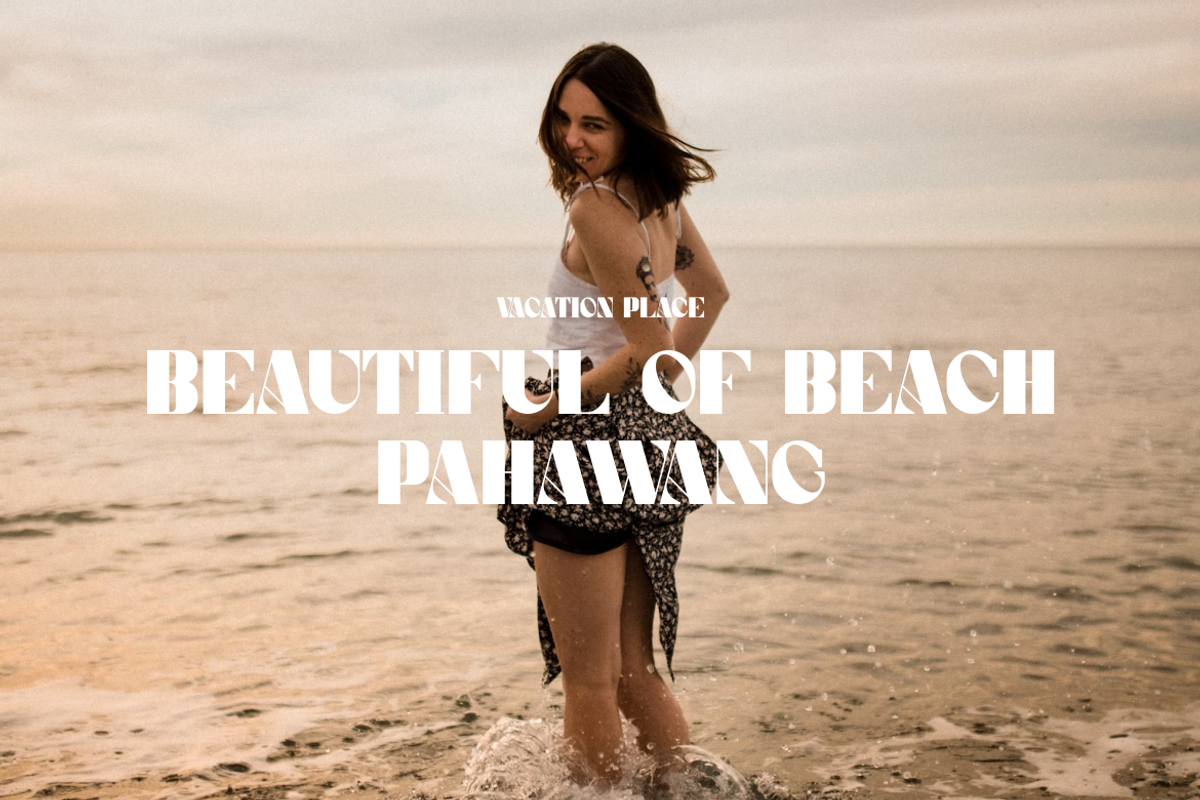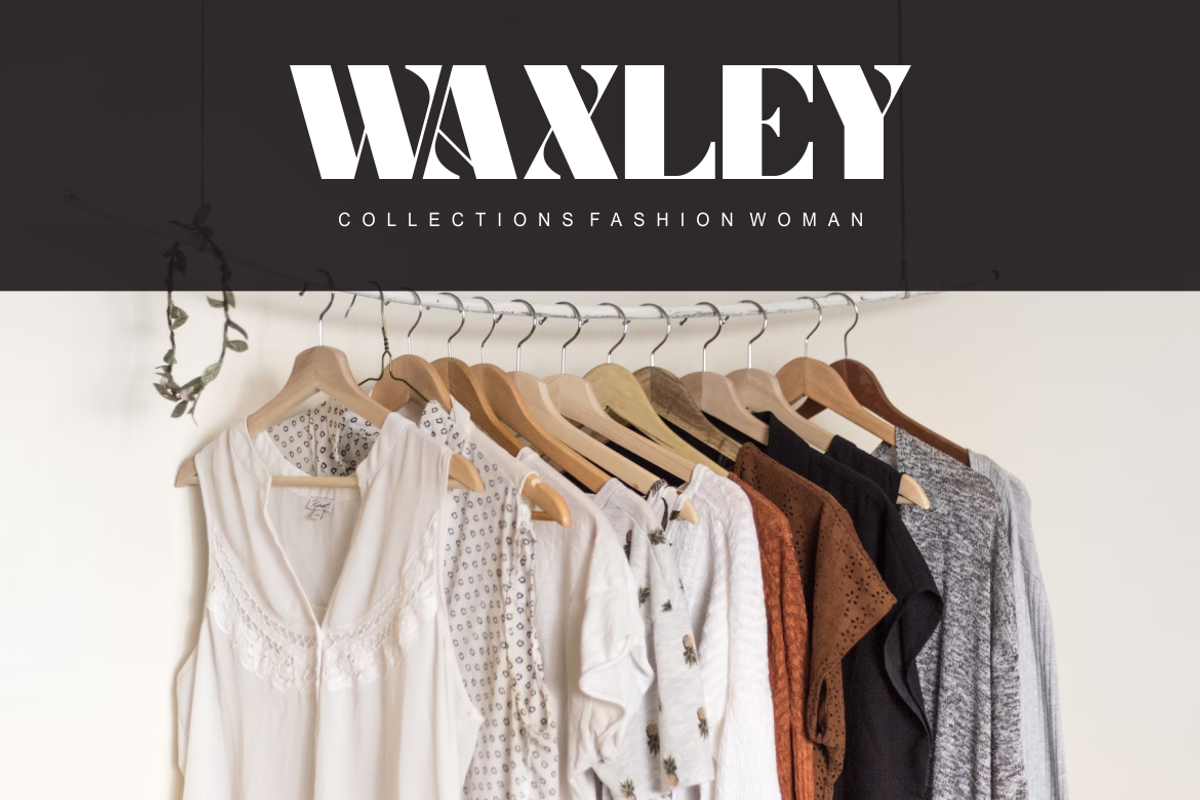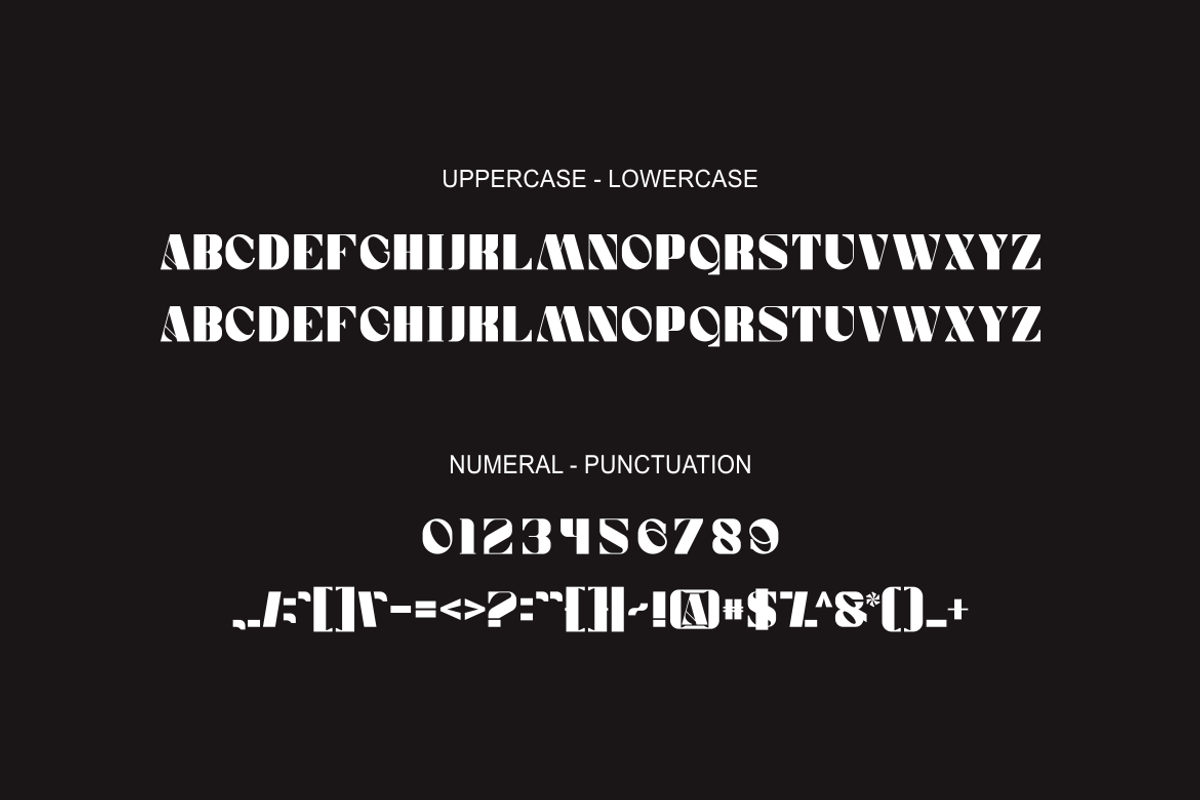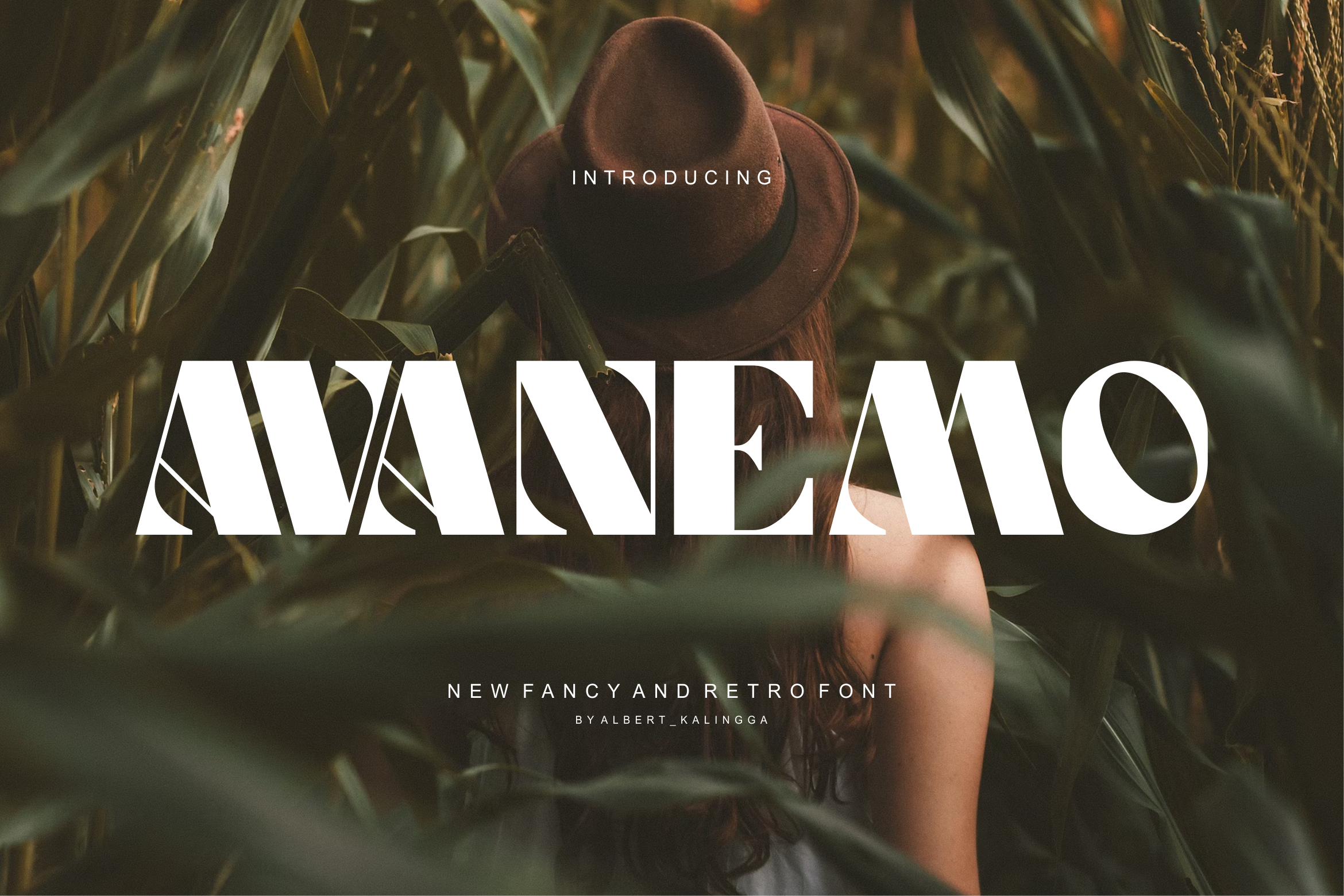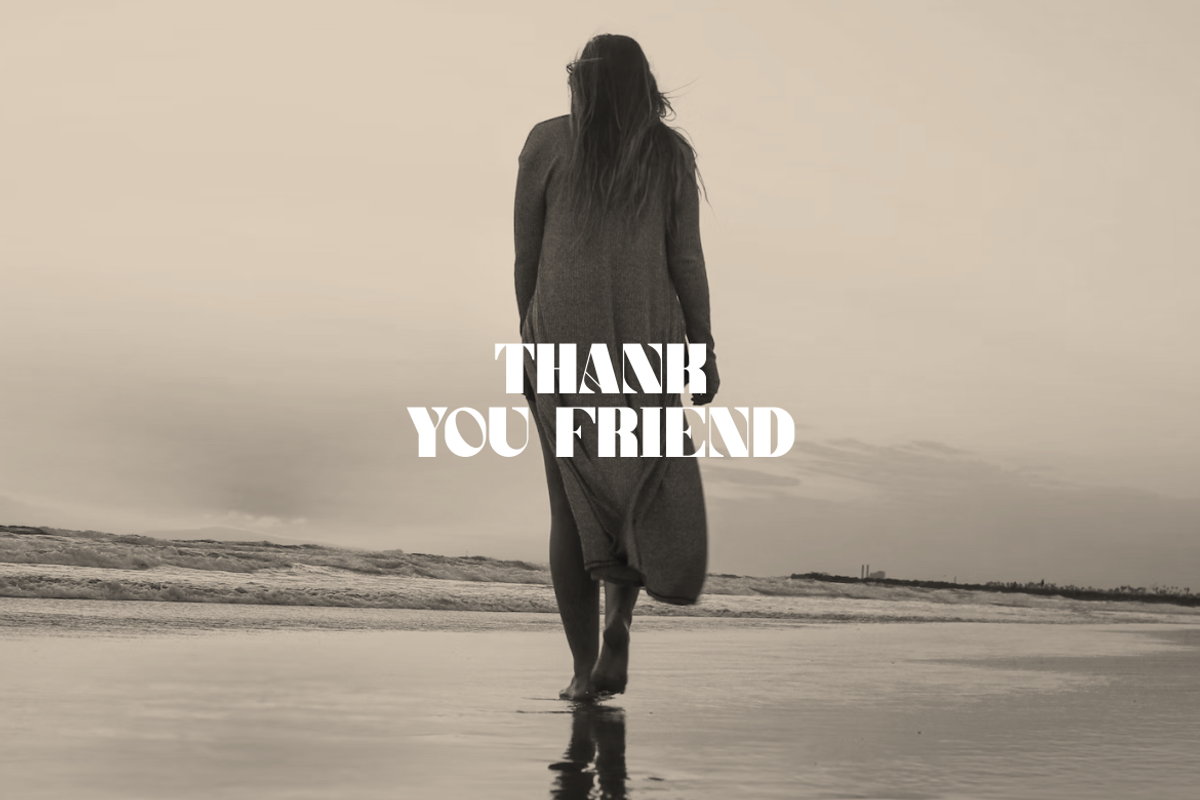
Avanemo Font
Introducing our new product Avanemo Font - Modern Font
Avanemo Font - Modern Font is a bold and authentic display font. The font is suitable for any branding project like logo, esport, and many more. outstanding in a wide range of contexts.